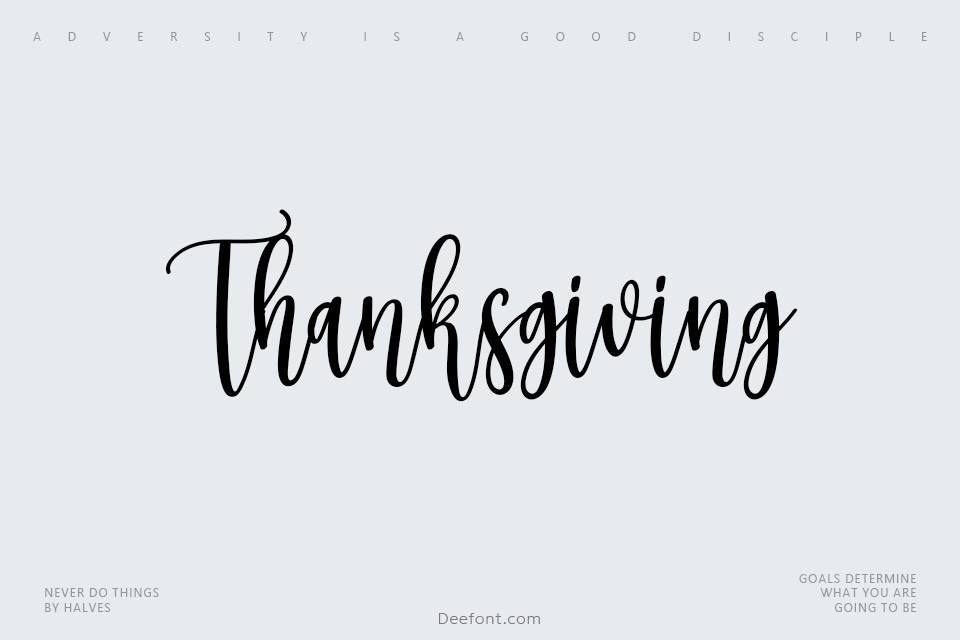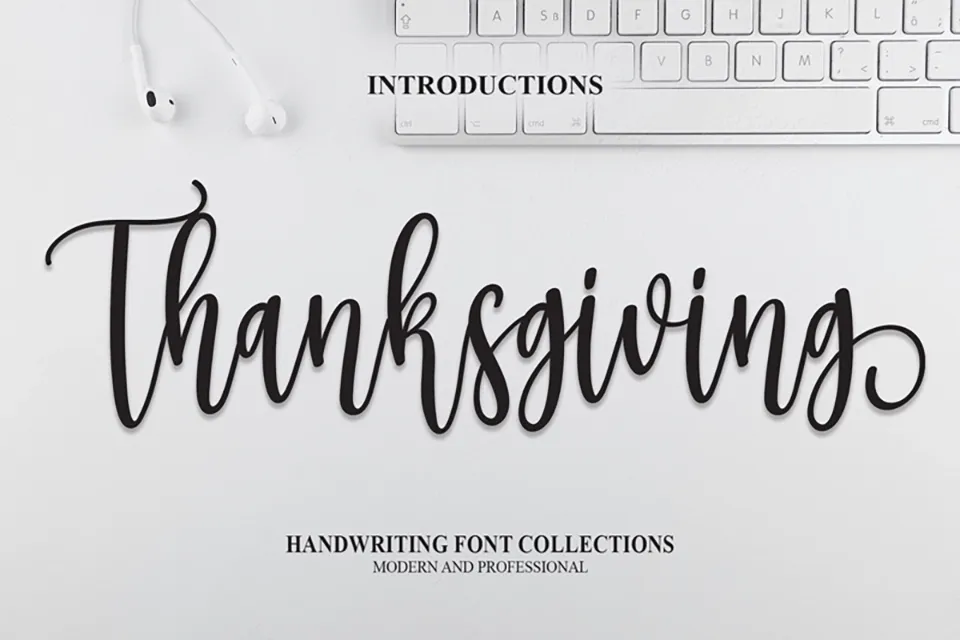
Thanksgiving Font
The latest style letters are perfect for wall displays, wedding invitations, social media post logos,advertisements, product packaging, product designs, labels, photography, watermarks, invitations, stationery,and any project that requires taste handwriting.